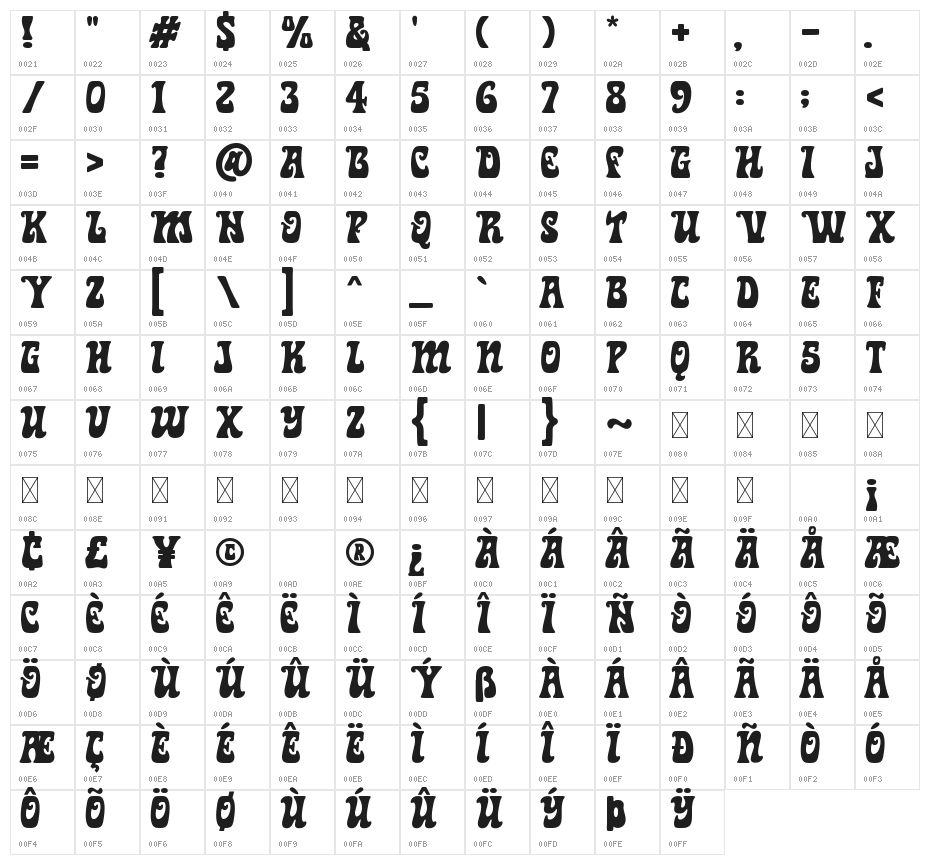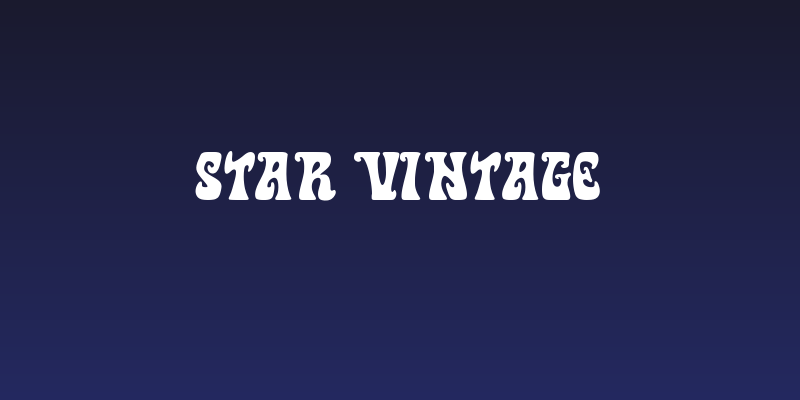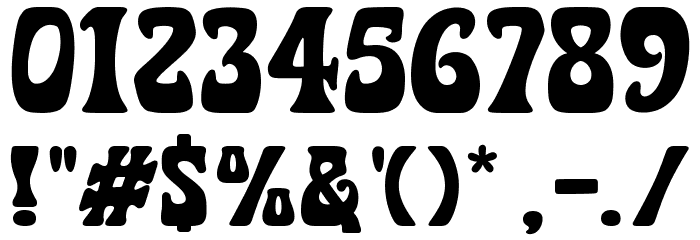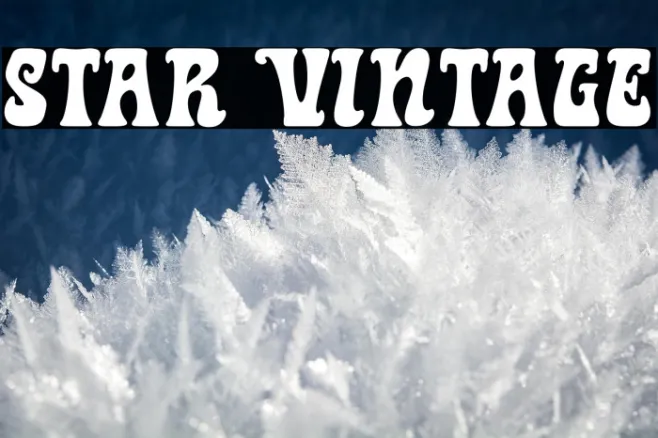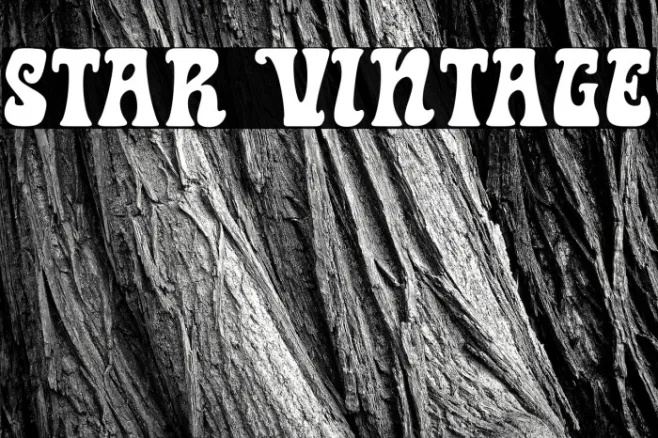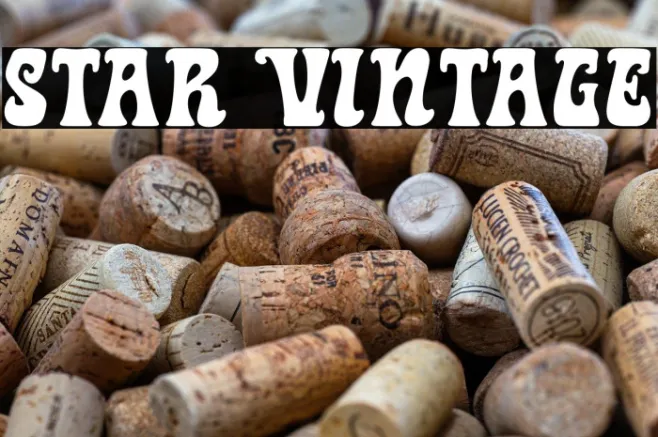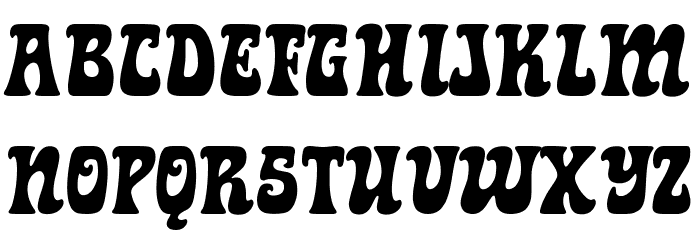
Star Vintage Font
This font features a bold and decorative style with a vintage flair, characterized by its thick, rounded strokes and playful curves. The letters have a unique, whimsical appearance, making them stand out with their bold presence. The font maintains a consistent weight throughout, providing a strong visual impact. Its design is reminiscent of retro styles, evoking a sense of nostalgia while remaining fresh and engaging. The characters are well-spaced, ensuring readability despite their ornate design. This font is perfect for projects that require a touch of vintage charm combined with a modern twist.
| Proposed Projects | Ideal for retro-themed posters, branding, packaging, and event invitations. |